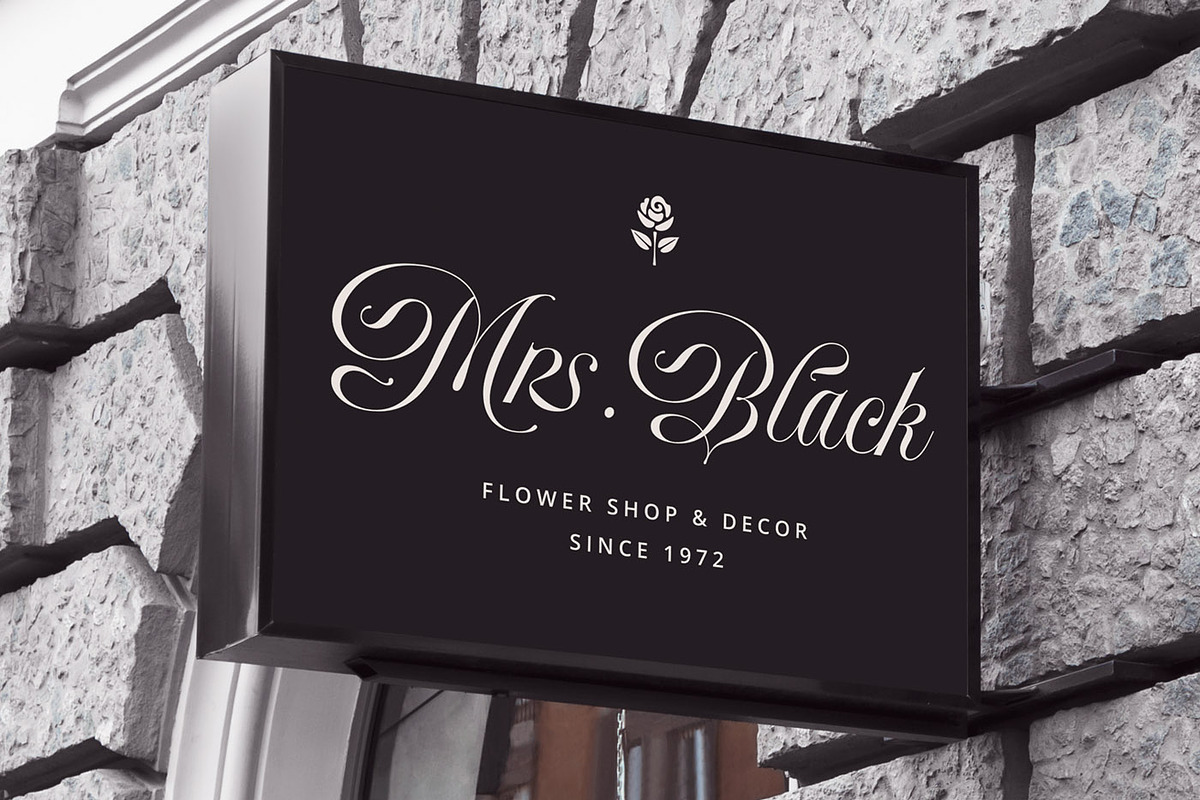
Delirian Script & Ornaments
Delirian is an elegant script typeface with a contemporary feel and refined forms, inspired by timeless classic calligraphy. Not too thin, not too thick — it's well-balanced, versatile, and made for luxury and beauty.
In the examples I’ve prepared, you can see how this script can be used. It’s perfect for logotypes, branding, wedding invitations, romantic cards, alcohol labels, packaging, name lettering, and more.
Delirian Script includes beautiful uppercase and lowercase letters, numbers, and punctuation. In addition to the main character set, it features 158 alternate characters, 36 ligatures, and 10 lengths of end swashes. You’ll also get an ornament set of 26 decorative elements that perfectly complement the original script.
This is a beautifully crafted calligraphic script, it has many alternate glyphs for many of the characters. It's very readable, and gives a nice, classy look without having it all looking like it was done with a rubber stamp. The swash versions of the uppercase letters/capital letters let you get a nice, custom feel, and the price is/was great!